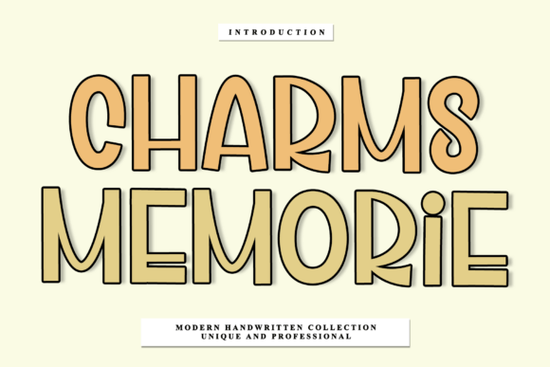
If you're looking for a handwritten font that feels personal and warm, Charms Memorie Font is a great choice. It’s designed to bring a gentle, expressive touch to your projects perfect for logos, quotes, wedding invitations, or branding elements that need a human feel. The letters flow naturally, with subtle variations in stroke and curve that make each character unique, giving your design a handcrafted look without the effort.
What makes Charms Memorie Font stand out?
Unlike many digital fonts that feel uniform or stiff, Charms Memorie has a natural rhythm. Each letter feels like it was written by hand, with slight inconsistencies that add authenticity. Whether you’re designing a small business logo or creating a heartfelt quote for a social media post, this font adds a layer of warmth and sincerity.
The font works well in both uppercase and lowercase, and its spacing allows for clean, readable text even at smaller sizes. It’s especially effective when used in combination with simple backgrounds or minimal layouts, letting the handwriting take center stage.
How can I use Charms Memorie Font in my creative work?
Here are some practical ideas based on real uses from designers and crafters:
- Branding & Logos – Use it for boutique names, coffee shop signs, or artisan product labels where a personal touch matters.
- Invitations & Greeting Cards – Ideal for weddings, baby showers, or birthday cards where emotion and elegance are key.
- Print-on-Demand Products – Great for T-shirts, mugs, and tote bags with inspirational phrases or names.
- Social Media Graphics – Add personality to quote posts, announcements, or promotional content.
- Stationery & Journals – Pair it with minimalist line art or watercolor textures for handmade-style designs.
Is Charms Memorie Font easy to use?
For reference, you can see Charms Memorie Font in action on the platform. The preview shows how it performs across different sizes and colors, helping you decide if it fits your project.
Final thoughts: Is Charms Memorie right for you?
If you value authenticity in your designs and want a font that feels genuine and expressive, Charms Memorie delivers. It’s not flashy, but it’s reliable ideal for creators who care about tone and mood as much as aesthetics.
Whether you're crafting a brand identity, making gifts, or just playing with design, this font brings a quiet charm that stands out.